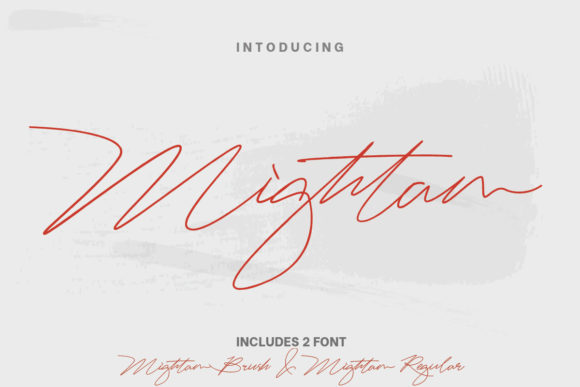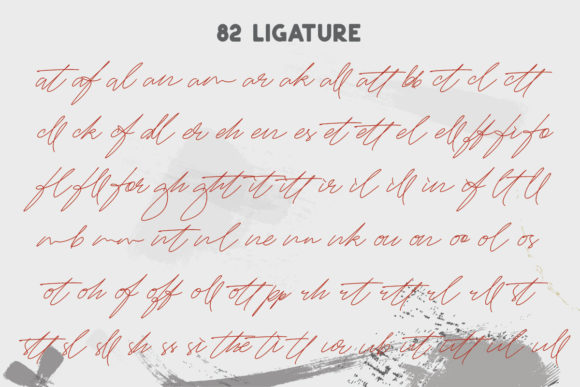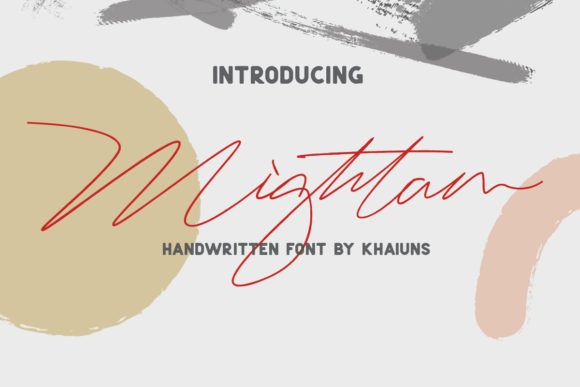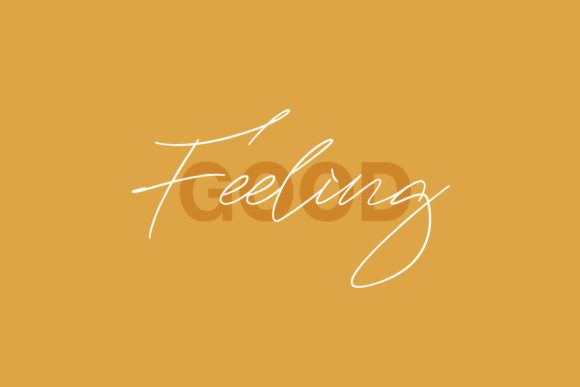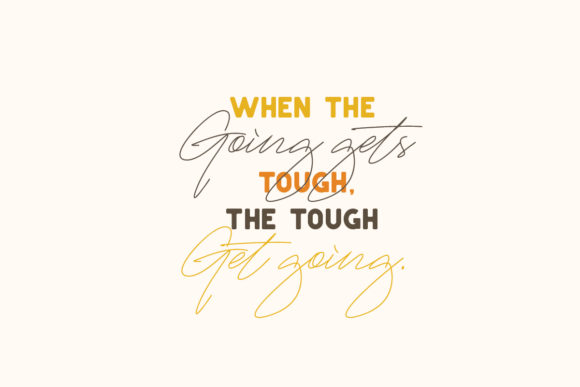
About Mightam Font
Mightam is a relaxed and timeless handwritten font. It is PUA encoded which means you can access all of the glyphs and swashes with ease! It maintains its classy calligraphic influences while feeling contemporary and fresh. Fall in love with this font and bring your projects to the highest levels!